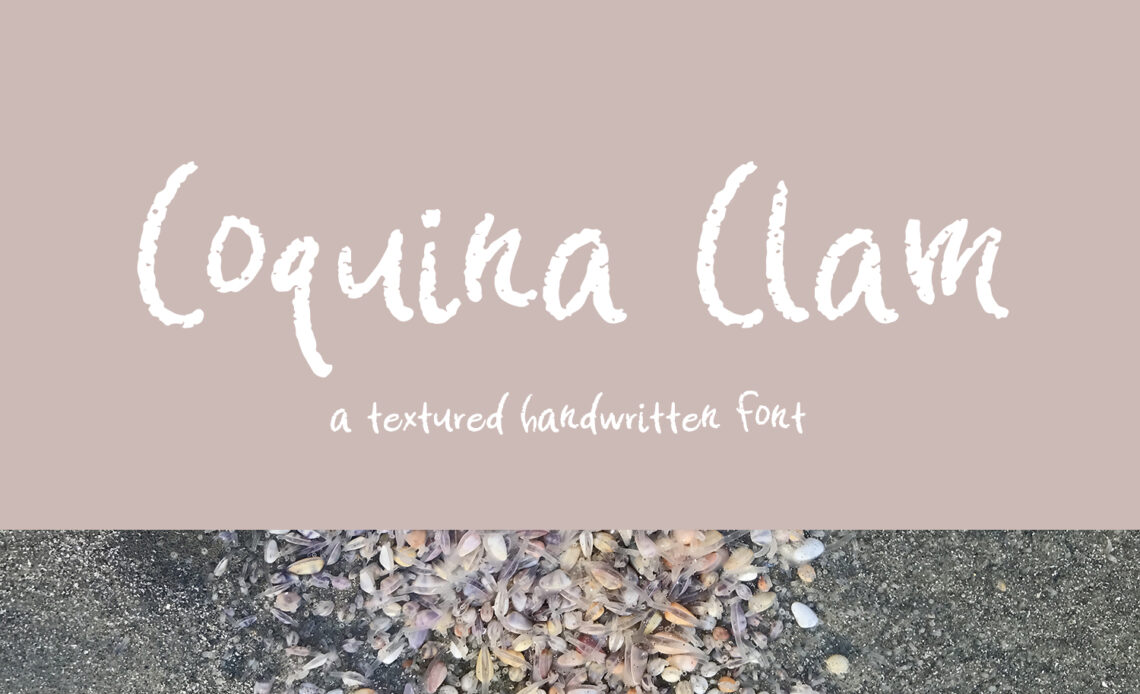
Coquina Clam Font
Embark on a typographic adventure with Coquina Clam, a captivating handwritten font that evokes the nostalgia of sun-drenched beach days. Inspired by the tiny, vibrant coquina clams that adorned the sandy shores of my childhood, this font embodies the playful spirit and intricate textures of the seaside.
Coquina Clam's charming characters dance across the page like grains of sand, evoking a sense of whimsy and carefree delight. Its flowing lines and organic curves mimic the gentle waves crashing upon the coast, creating a visual symphony that captures the essence of summer days spent by the ocean.
Whether you're a seasoned designer or a creative enthusiast, Coquina Clam empowers you to transform your projects into works of art. Its versatility knows no bounds, lending itself seamlessly to a myriad of applications. Picture this font gracing the pages of enchanting children's books, adding a touch of whimsy to your social media posts, or bringing life to your heartfelt letters.
With each stroke of this font, you'll evoke the carefree spirit of seaside adventures, inviting your audience to dive into a world of imagination and wonder. Embrace the beauty of the beach and let Coquina Clam carry your words to new heights of creativity.